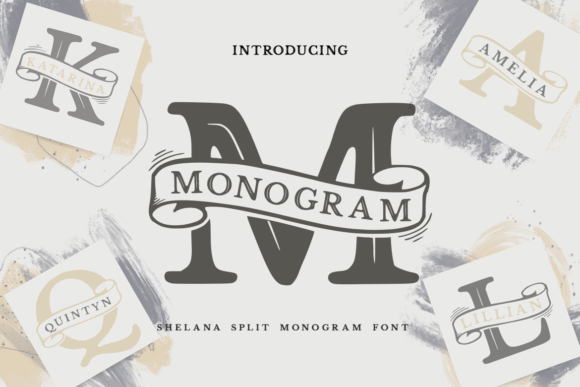
Discover the perfect font for your monogram with Shelana Split Monogram Font! This vintage styled and unique serif font is the ideal choice for anyone looking to add an extra level of sophistication to their branding projects. With its elegant and timeless design, Shelana Split Monogram is guaranteed to make your logo, t-shirt printing, sporting design, and other projects stand out from the rest.
Crafted by the experts at RochArt, this font is specifically tailored to suit the needs of those who are looking for the best fonts for monograms. Its intricate design and carefully crafted details ensure that it will be the perfect addition to any project, no matter how big or small.
Whether you're a professional designer or someone who simply loves to experiment with fonts, Shelana Split Monogram is the perfect choice for you. Its versatility makes it suitable for a wide range of contexts, including vintage and retro projects, modern and contemporary designs, and everything in between.
This font family is more than just a font – it's a statement. With its eye-catching and captivating design, Shelana Split Monogram is sure to leave a lasting impression on anyone who sees it. So why wait? Download Shelana Split Monogram today and start creating stunning designs that will elevate your brand to new heights!